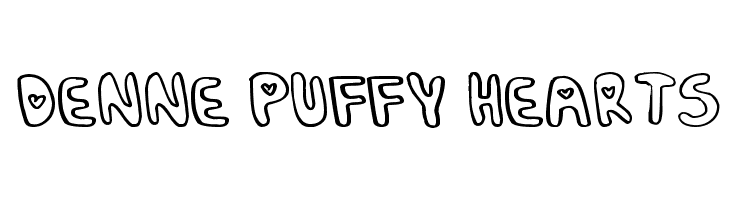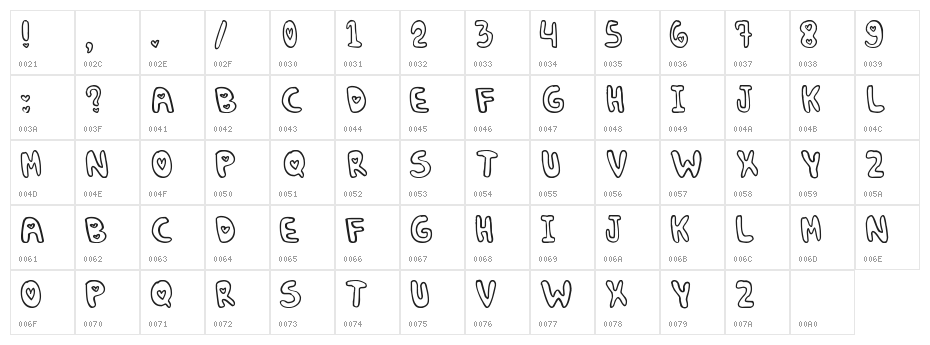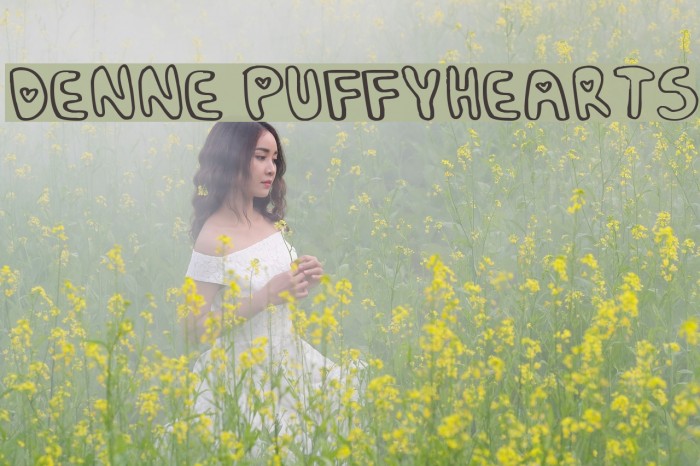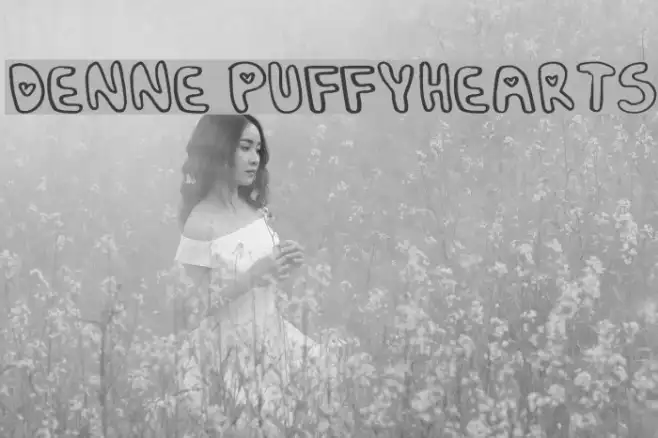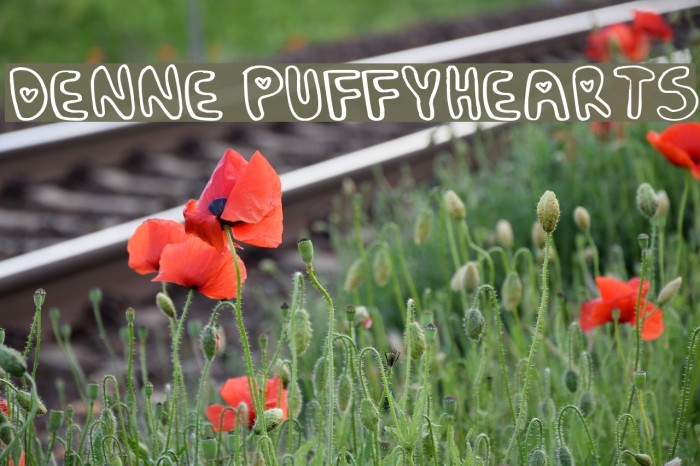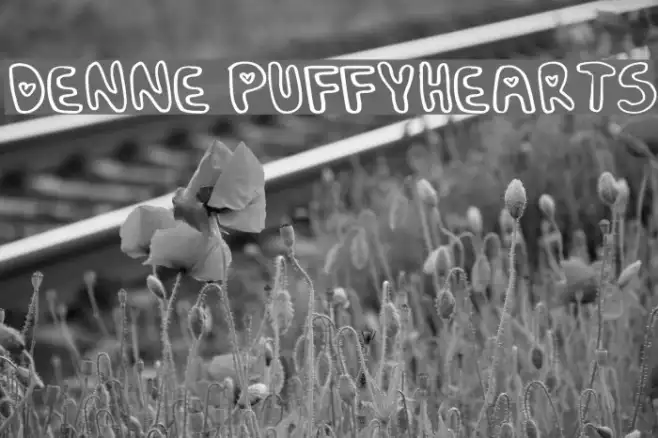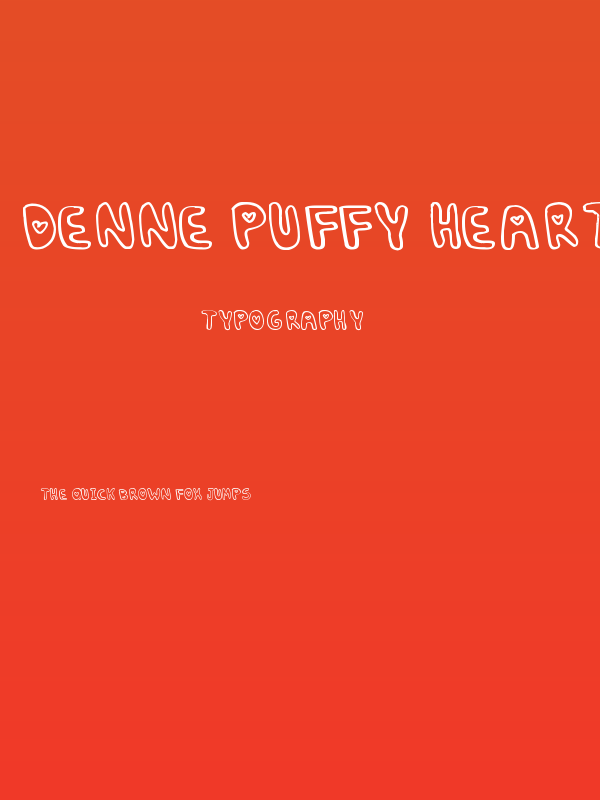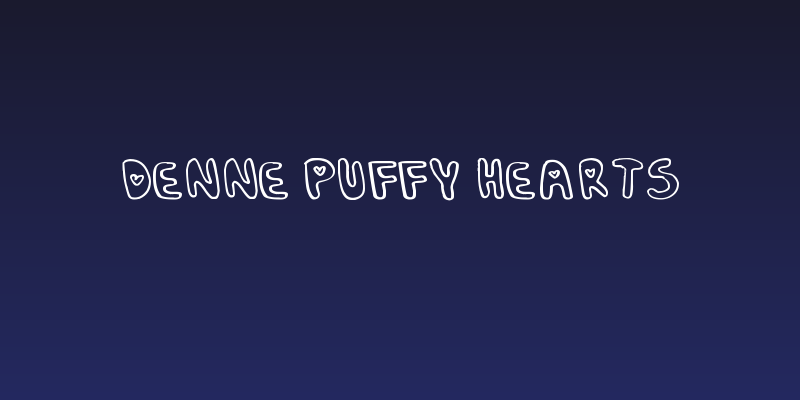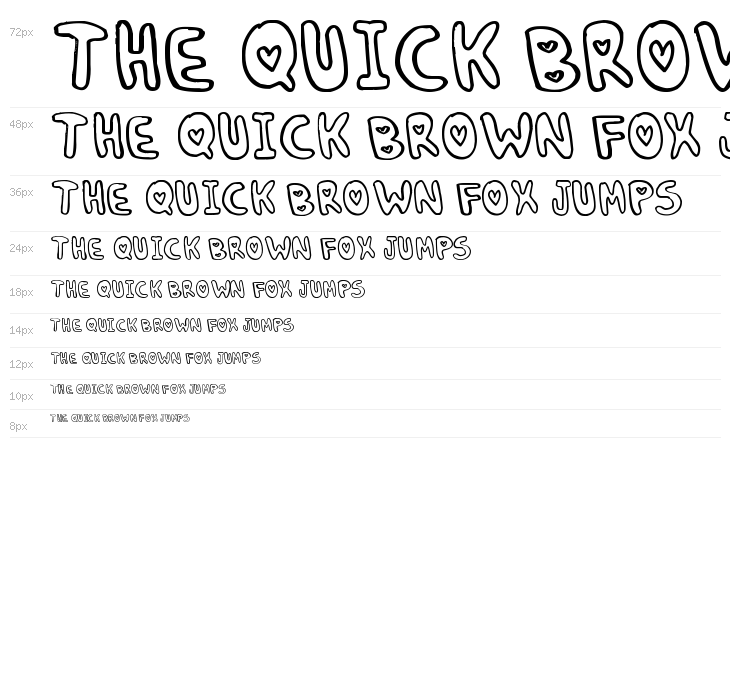
Denne Puffy-Hearts Font
Denne Puffy-Hearts Description
This playful and whimsical font features a unique heart motif integrated into the design of each character, giving it a charming and romantic feel. The letters are bold and rounded, with a hand-drawn appearance that adds a personal touch. The strokes are consistent in width, providing a balanced look, while the heart embellishments add a decorative flair. This font is perfect for projects that require a fun and lighthearted aesthetic, such as greeting cards, children's books, or playful branding materials. The overall style is decorative and eye-catching, making it suitable for headlines and titles where a touch of personality is desired.
| Use Case | Headlines, Logos, Greeting Cards |
| Proposed Projects | Ideal for greeting cards, children's books, playful branding, and decorative headlines. |